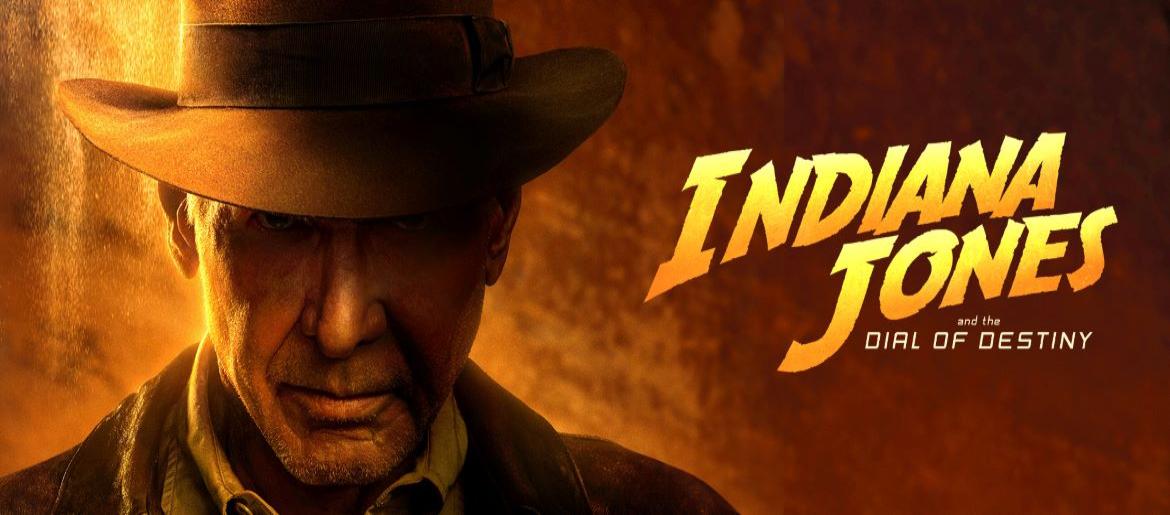
Indiana Jones Font
Indiana Jones Font stands as one of cinema’s most recognizable typographic creations. The distinctive lettering immediately evokes feelings of thrilling expeditions, ancient mysteries, and classic Hollywood adventure. Characterized by its dramatic slant and bold proportions, this typeface has become a go-to choice for designers and enthusiasts seeking to infuse their work with a sense of discovery and excitement.
Understanding the Indiana Jones Lettering
The font draws inspiration from the powerful, angular script featured in the film series’ branding. Its distinctive appearance includes sharply inclined characters with subtle shadow effects that create a feeling of motion and depth. This design perfectly mirrors the pulse-pounding nature of the films, creating immediate recognition among audiences worldwide.
Although the original studio lettering remains unavailable for public use, numerous dedicated recreations have emerged within the design community. These interpretations successfully capture the essence of the films and frequently appear in tribute artwork, promotional materials, and various creative endeavors.
Available Font Alternatives
For those seeking to incorporate this adventure-inspired typography into their projects, several excellent alternatives exist:
- SF Fedora – A complimentary option that echoes the daring aesthetic of the film series
- Adventure – A straightforward, powerful typeface that embodies the exploratory spirit while maintaining its own identity
Finding the Font
Conclusion
The Indiana Jones lettering represents more than mere text—it embodies adventure, enigma, and timeless narrative magic. Whether you’re crafting promotional materials, event invitations, or simply aiming to add dramatic flair to your designs, this legendary typographic style serves as an ideal selection. Like the character himself, it brings an air of bold exploration and thrill to any project it graces.